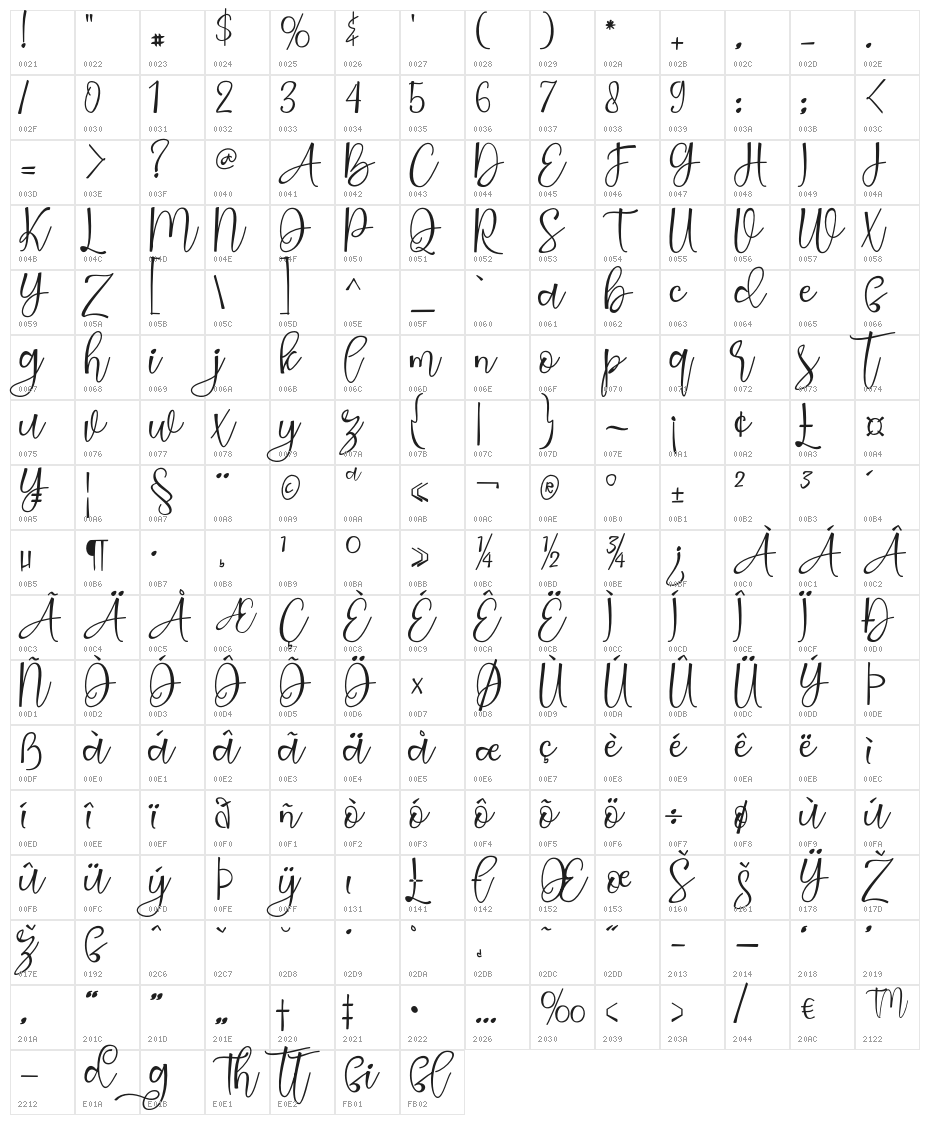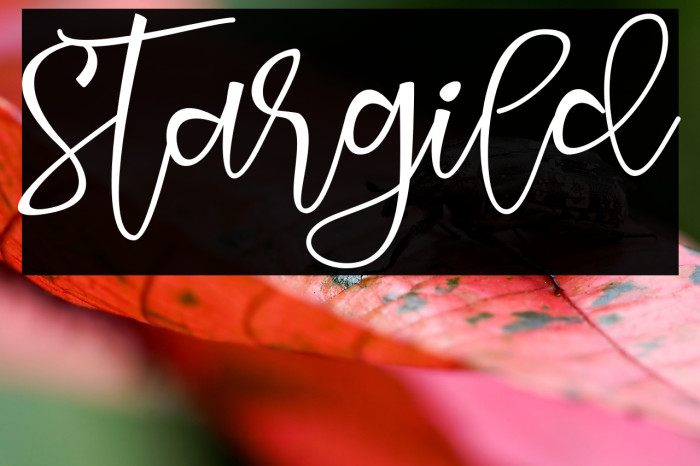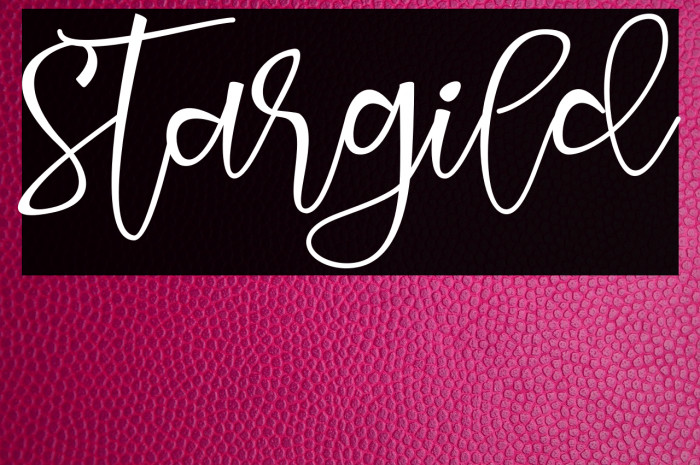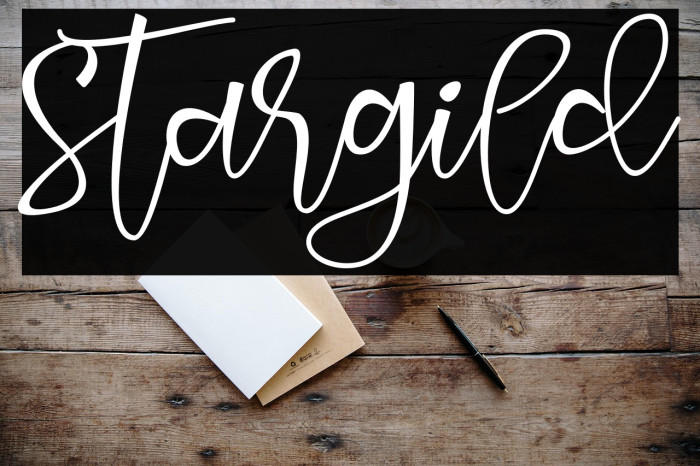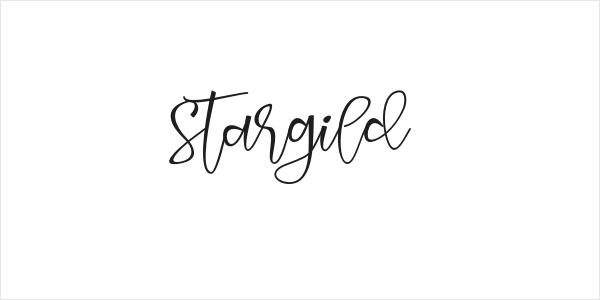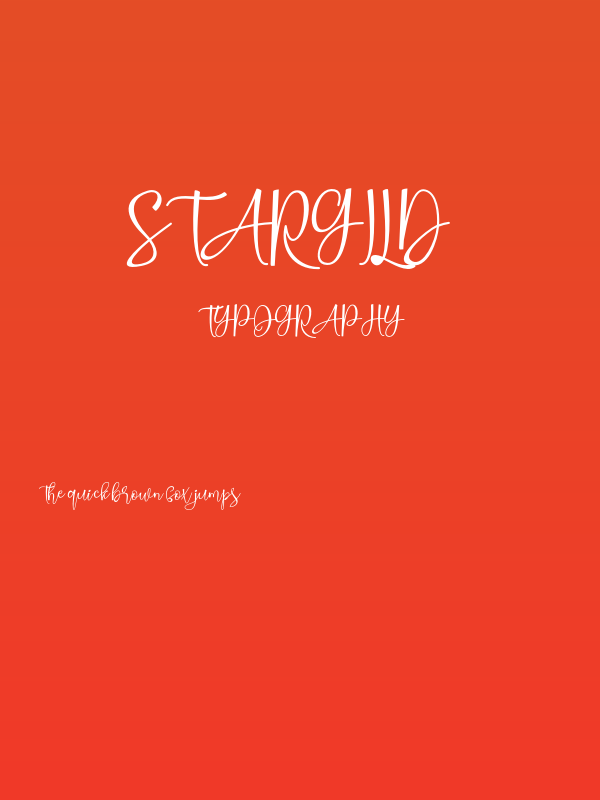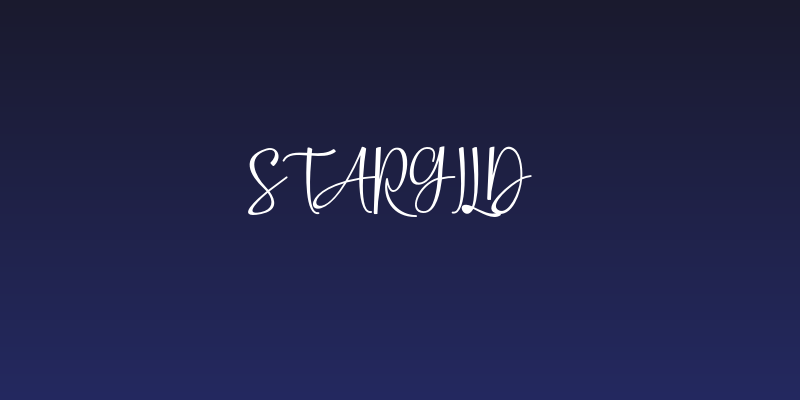
Stargild Font
Stargild Description
This font exudes a playful and elegant handwritten style, characterized by its flowing, cursive letters. The uppercase letters are tall and slightly narrow, with a consistent slant that adds a sense of motion and fluidity. The lowercase letters maintain this slant, featuring loops and curves that enhance the handwritten aesthetic. Numbers are distinct and easy to read, with a slight slant that matches the letters. Special characters are creatively integrated, maintaining the overall style. The strokes are smooth and consistent, with a medium contrast that adds depth without overwhelming the design. This font is ideal for projects that require a personal touch, such as invitations, greeting cards, or branding materials where a sense of elegance and approachability is desired.
| Overall Style | Elegant, Playful |
| Use Case | Headlines, Invitations, Greeting Cards |
| Proposed Projects | Ideal for invitations, greeting cards, branding materials, and any project needing a personal touch. |